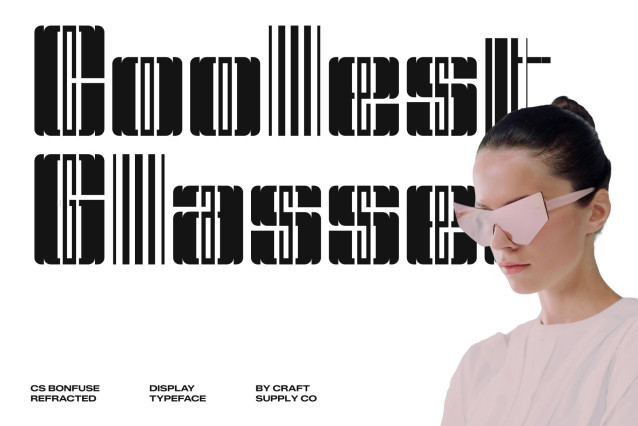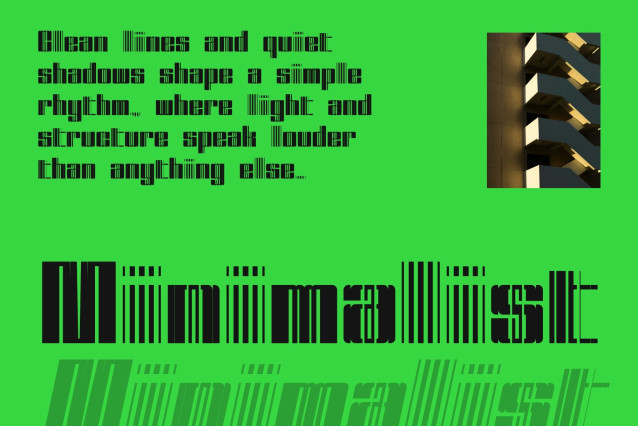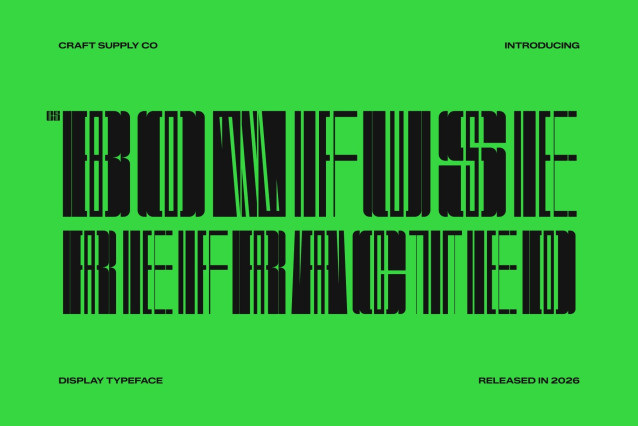
CS Bonfuse Refracted – Bold Condensed Sans Serif Font: Where Futuristic Glitch Meets Experimental Design
Fragmented Geometric Forms with Futuristic Energy
This is a bold condensed sans serif font designed with striking refracted effects inspired by glitch-like light distortion. Its characters appear cut, fragmented, and sliced with geometric precision, creating a futuristic and experimental visual identity. The condensed structure amplifies its impact, making every word feel dynamic, intense, and highly attention-grabbing.
Glitch-Inspired Style with Digital Aesthetics
This font delivers a typographic experience full of movement and technological energy. The fractured details evoke digital interference, neon reflections, and cyber-inspired visuals, giving the font a bold personality ideal for contemporary creative projects.
Condensed Structure with Strong Display Impact
This font creates a compact yet commanding presence perfect for large-scale display applications. Its sharp geometry and fragmented rhythm enhance readability while preserving an edgy and experimental atmosphere.